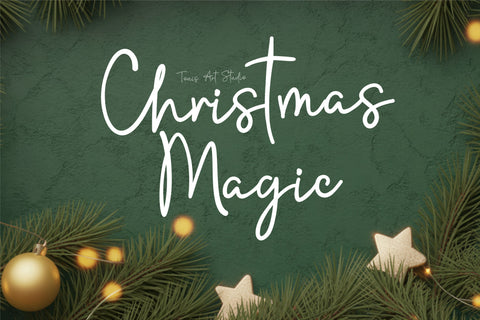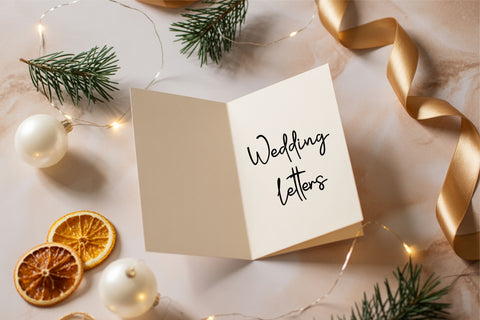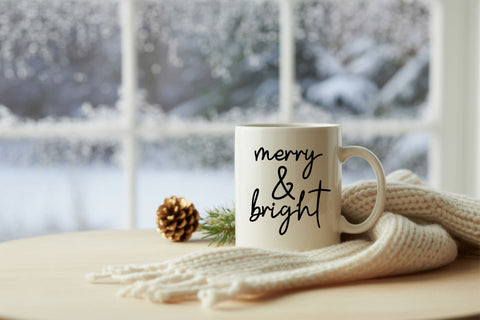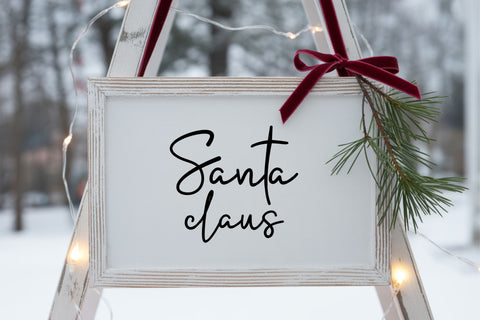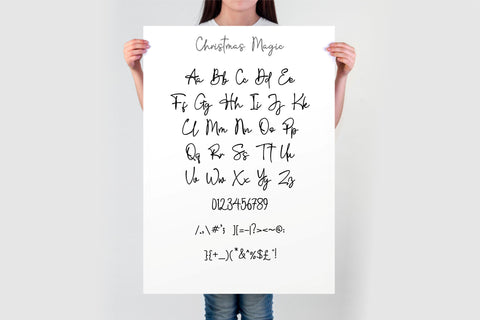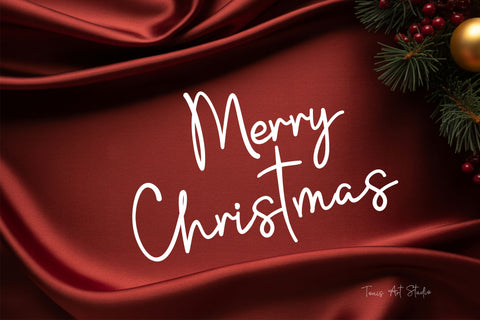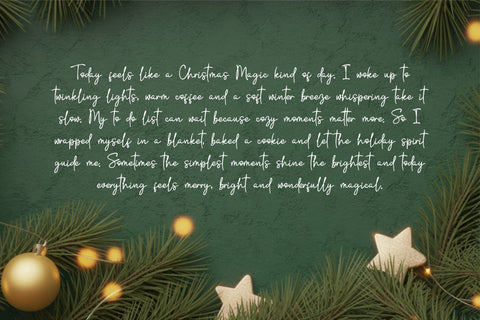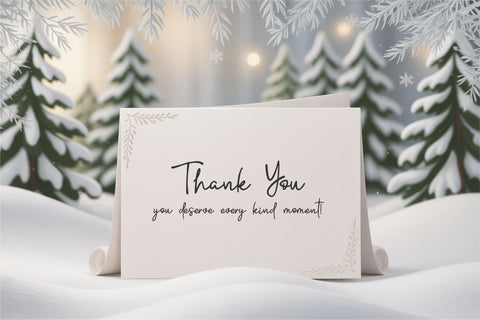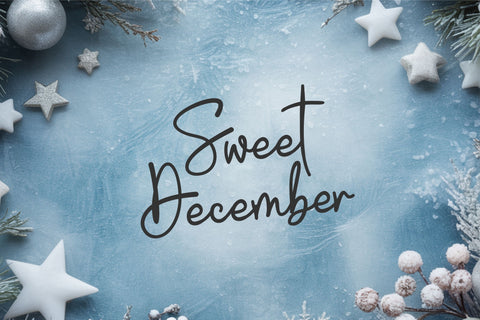
Christmas Magic Script, Elegant Holiday, Wedding Font
Christmas Magic is an elegant handwritten script font designed to bring warmth, grace, and seasonal charm to every creative project. With soft flowing strokes, tall letterforms, and a natural handwritten rhythm, this script delivers a perfect balance of festive cheer and timeless elegance. Ideal for winter stationery, Christmas cards, holiday quotes, mugs, shirts, tags, ornaments, planners, and cozy printable décor.
Its refined handwritten style also makes it perfect for wedding design—bridal letters, vow books, save-the-date cards, invitations, thank-you notes, place cards, menus, and romantic gifts. The smooth outlines ensure clean results on Cricut, Silhouette, Glowforge, Canva, Procreate, and all design software. Whether creating magical Christmas moments or crafting soft modern wedding pieces, Christmas Magic adds a heartfelt touch to every word.
This font includes full A–Z characters, numbers, punctuation, and professionally smoothed strokes for flawless cutting and printing.